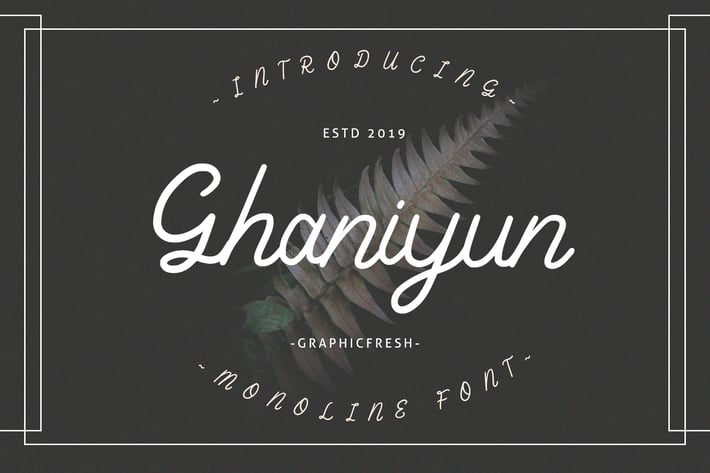
Ghaniyun Monoline Font
Graphicfresh
Ghaniyun Monoline Font
Ghaniyun Monoline Font . it's perfect for logos, name card, magazine layouts, invitations, headers, or even large-scale artwork.
- Lowercase and Uppercase
- Punctuation and Number
- Multilingual Language